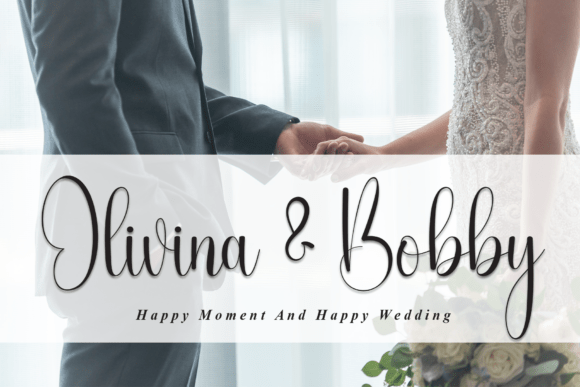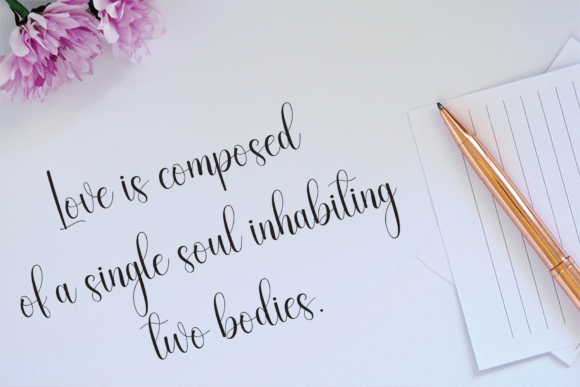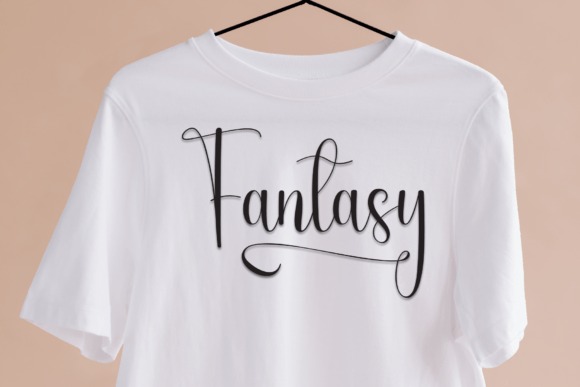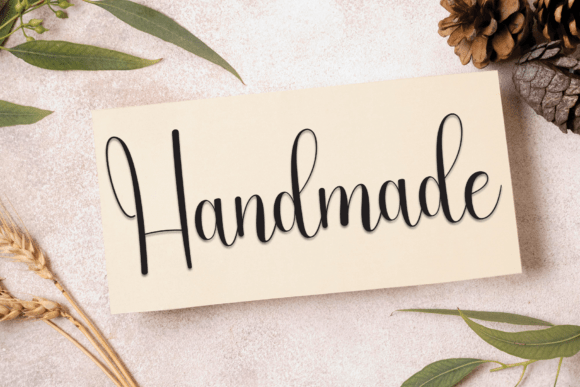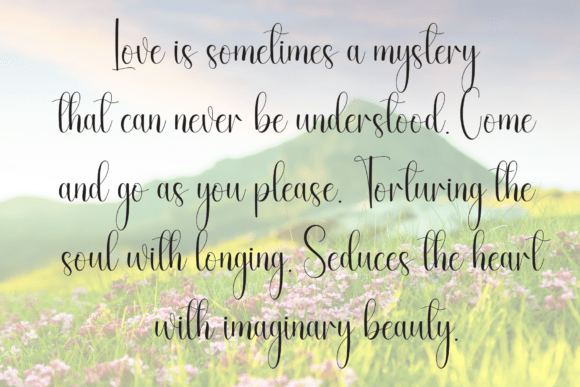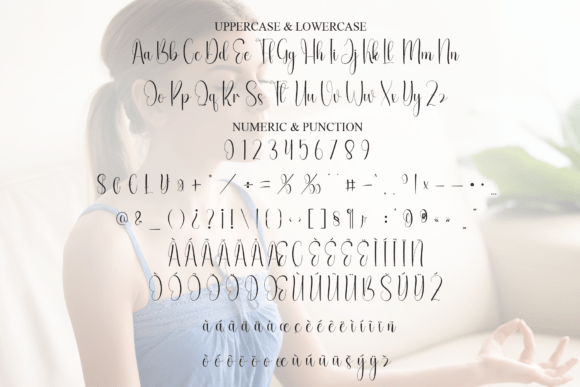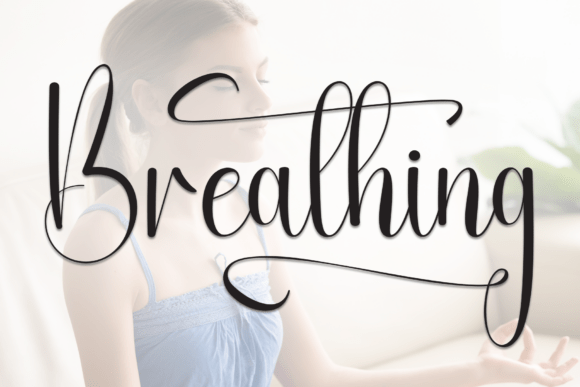
Introducing Breathing Font: Elevate Your Designs with Elegance and Fluidity
In the world of typography, a well-crafted font can make all the difference in elevating your designs to new heights. Meet Breathing Font, a stylish handwritten script font that embodies the perfect blend of elegance, fluidity, and sophistication. With its smooth, flowing strokes, Breathing Font is designed to add a personal, artistic touch to any design, making it an ideal choice for branding, invitations, and creative projects.
The Characteristics of Breathing Font
Breathing Font boasts a range of characteristics that set it apart from other typefaces. Its smooth, flowing strokes create a natural and sophisticated feel, evoking a sense of fluidity and movement. The font’s elegant and refined appearance makes it perfect for designs that require a touch of luxury and sophistication. Whether you’re working on a branding project, creating invitations, or developing a website, Breathing Font is sure to impress.
Key Features of Breathing Font
- Elegant and Refined Appearance: Breathing Font features a sophisticated and elegant design, perfect for high-end branding, luxury packaging, and refined marketing materials.
- Smooth and Fluid Strokes: The font’s smooth, flowing strokes create a natural and artistic feel, adding a personal touch to any design.
- Versatile and Adaptable: Breathing Font is suitable for a wide range of design applications, from branding and advertising to packaging and digital media.
- Easy to Read and Understand: Despite its elegant and refined appearance, Breathing Font remains highly legible, making it perfect for body text and longer-form content.
Use Cases for Breathing Font
Breathing Font’s versatility and adaptability make it an excellent choice for a wide range of design applications. Here are some use cases where Breathing Font truly shines:
- Branding and Logo Design: Create a lasting impression with Breathing Font’s elegant and sophisticated design, perfect for luxury brands, high-end products, and refined services.
- Invitations and Event Design: Add a touch of elegance and refinement to your invitations, wedding stationery, and event marketing materials with Breathing Font’s beautiful script.
- Packaging and Label Design: Elevate your product packaging with Breathing Font’s sophisticated and elegant design, perfect for high-end products and luxury goods.
- Digital Media and Web Design: Use Breathing Font to create stunning website headers, blog titles, and social media graphics that showcase your brand’s personality and style.
Tips for Using Breathing Font Effectively
To get the most out of Breathing Font, here are some tips to keep in mind:
- Pair with Neutral Backgrounds: Breathing Font’s elegant design works best with neutral backgrounds, allowing the font to take center stage.
- Experiment with Font Sizes: Play with different font sizes to create visual hierarchy and emphasize key messages.
- Use for Headings and Titles: Breathing Font is perfect for headings and titles, adding a touch of elegance and sophistication to your designs.
In conclusion, Breathing Font is a stylish handwritten script font that radiates elegance and fluidity. Its smooth, flowing strokes create a natural and sophisticated feel, perfect for branding, invitations, and creative projects. With its versatile and adaptable design, Breathing Font is sure to become a staple in your typography collection. Whether you’re a designer, craftsperson, or DIY enthusiast, Breathing Font is the perfect choice for adding a personal, artistic touch to your designs.